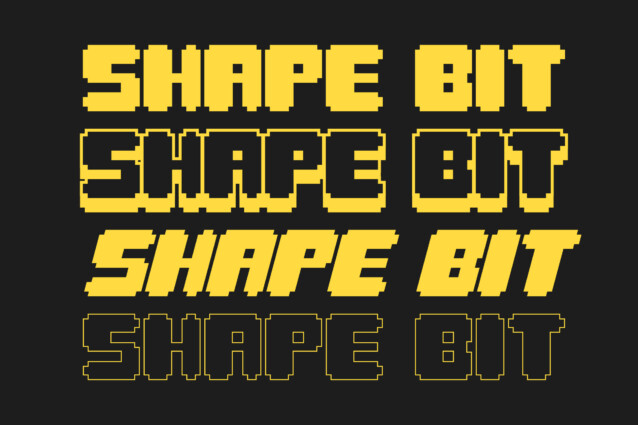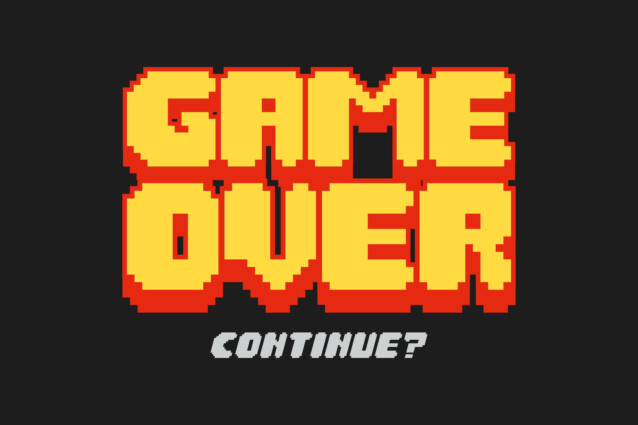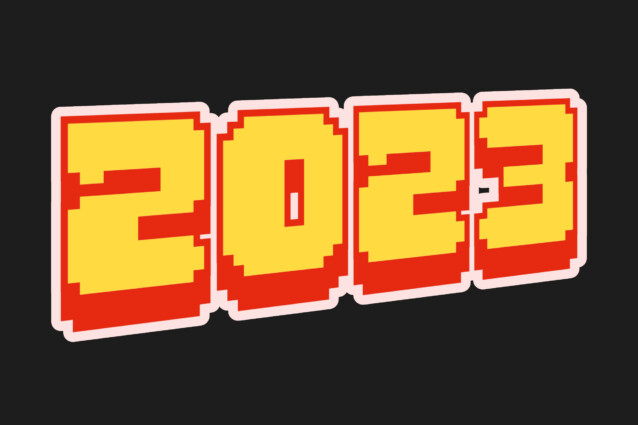
Shape Bit Font is inspired by ancient games that still use pixel displays. This font can be used for various designs as needed, especially pixel-themed designs. In addition, the Shape Bit font can also give a retro feel to your designs.